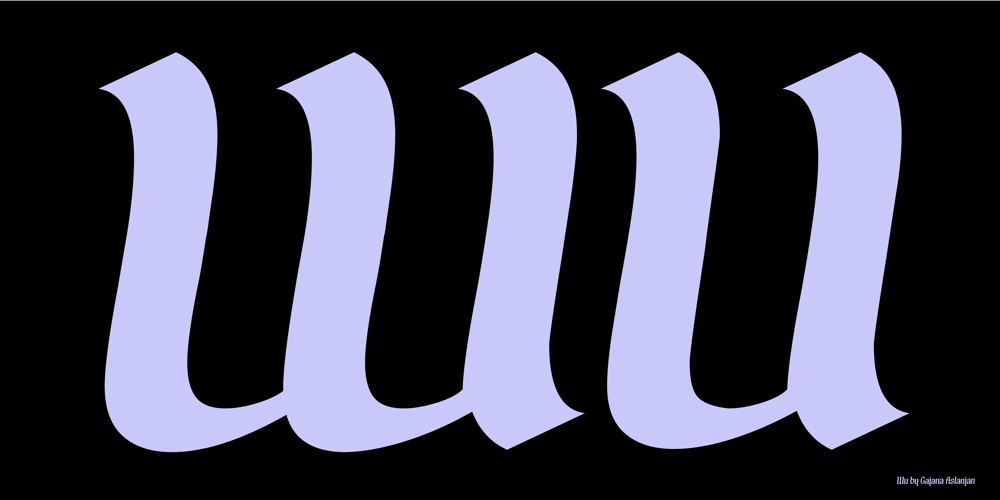
Wu Font Family was designed by Gajana Aslanjan and published by Gajana Aslanjan. Wu contains 3 styles and family package options. Wu is a font that flows through the page like waves in the sea. The font is based on the shape of an Ancistrus fish swimming through water. The shapes of the letters flow into each other and move out again in perfect harmony. Purchase this font and come see it swim.